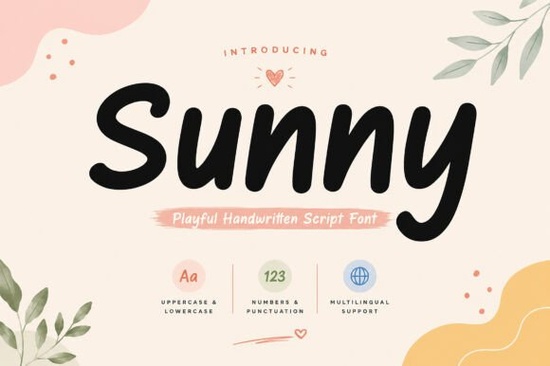
If you're looking for a friendly, handwritten script font that feels warm and approachable without being overly cutesy or hard to read Sunny Font is a solid choice. It’s designed with smooth curves and bold, confident strokes that mimic natural handwriting, making it easy to use across real-world projects like café branding, kids’ product labels, or Instagram quote graphics. Unlike some script fonts that sacrifice legibility for flair, Sunny keeps things clear at smaller sizes while still carrying plenty of personality.
When does Sunny Font work best?
Sunny shines in contexts where warmth and authenticity matter. Think of a local bakery’s chalkboard-style menu, a small business’s Instagram story announcing a seasonal sale, or hand-lettered packaging for organic baby products. It’s not meant for dense body text or formal legal documents but it fits beautifully in places where you want people to pause, smile, and feel invited in.
Many designers reach for Sunny when they need something more relaxed than a polished calligraphy font but more intentional than a freebie “hand-drawn” download. It pairs well with clean sans-serifs (like Montserrat or Inter) for contrast, or with other friendly scripts if you’re building a font family like Whipped Honey Family Font, which shares a similar cheerful energy but offers more stylistic variation.
What’s included and what you can actually do with it
Sunny comes with full uppercase and lowercase letters, numbers, punctuation, and multilingual support including Latin-based languages like Spanish, French, and German. That means you can confidently use it for bilingual greeting cards or shop signage without hitting missing-character roadblocks.
It’s worth noting that Sunny isn’t a “one-size-fits-all” script it’s intentionally playful, not elegant or formal. So if your project calls for vintage sophistication, you might prefer something like Ice Cream Alley Family Font, which leans into retro charm with swashes and flourishes.
How does it compare to other popular script fonts?
Sunny sits comfortably between high-energy options like Mango Bloom Font (which has bolder bounce and tighter spacing) and softer, airier choices like Special Font. It’s less condensed than Mango Bloom, so it breathes better in tight layouts like social media banners or product tags. And unlike Special Font which leans minimalist Sunny keeps a gentle rhythm and visible pen pressure, giving it more tactile warmth.
If you're building a brand identity system, consider pairing Sunny with a neutral sans-serif for headings and body copy. Or layer it with a subtle texture overlay (like light paper grain) to enhance its handmade feel without overcomplicating the file.
For crafters using cutting machines, Sunny cuts cleanly at sizes 1.5" and up. Just avoid ultra-thin stroke weights below 0.75" the font wasn’t built for hairline precision, and that’s okay. Its strength is readability and friendliness, not technical thinness.
You can see how Sunny Font looks in live mockups and user projects directly on Creative Fabrica, where buyers often share real examples from Etsy shop headers to printable planners.
A quick checklist before you download
- ✅ You need a script font that’s readable at small sizes (e.g., Instagram captions, product tags)
- ✅ Your project benefits from warmth not formality like kids’ goods, cafes, or wellness brands
- ✅ You’re working across platforms (Mac + Windows) and want reliable rendering
- ✅ You’d like multilingual support without switching fonts mid-project
- ❌ You don’t need extensive stylistic alternates or decorative swashes (for those, try Whipped Honey instead)
If those match your needs, Sunny is ready to add genuine, low-effort cheer to your next design no overthinking required.